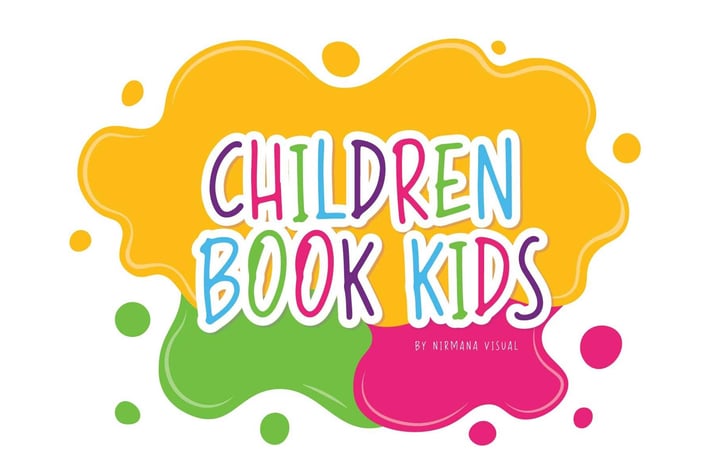
Children Book Kids - Cute Font
Say hello for ”Children Book Kids ” with Natural Handwritten Artistic Style,
this is perfect for Crafting, Branding, Logos, packaging, masterheads and more.